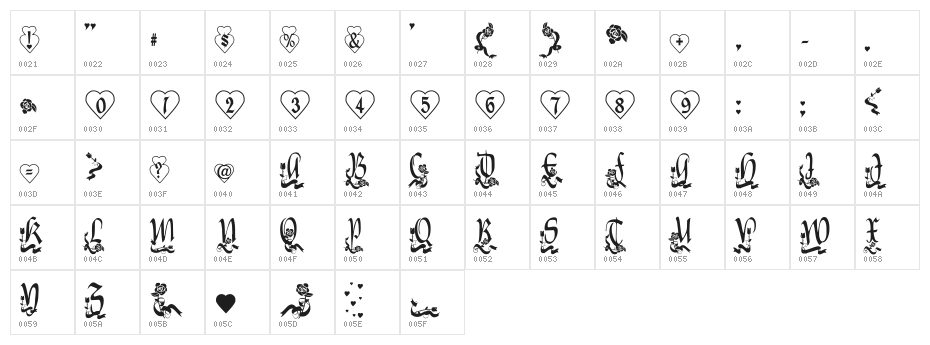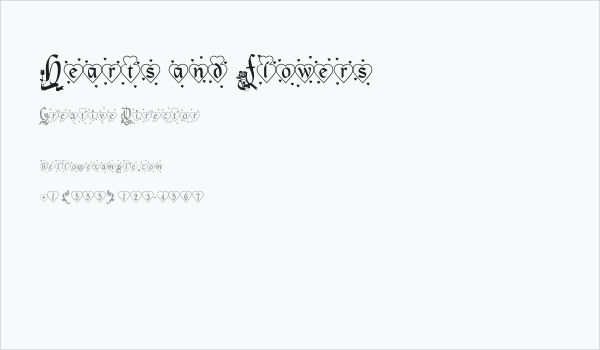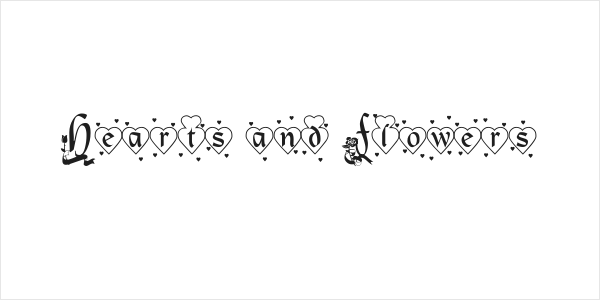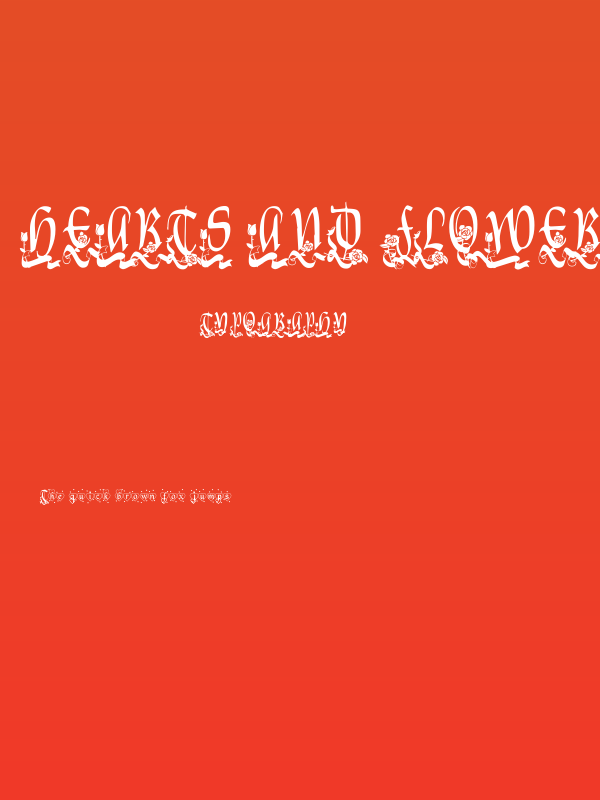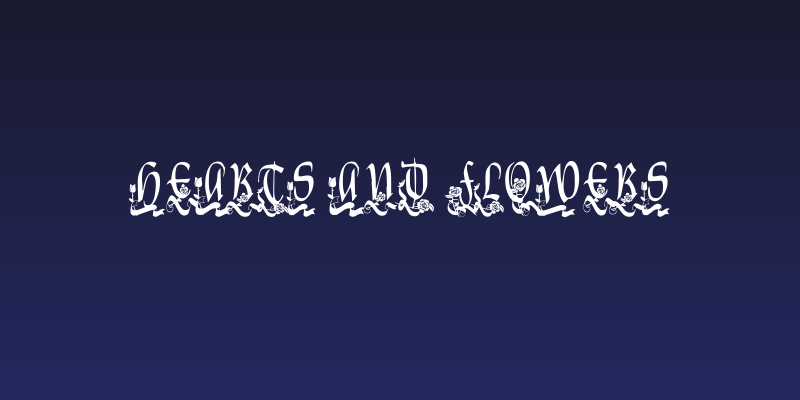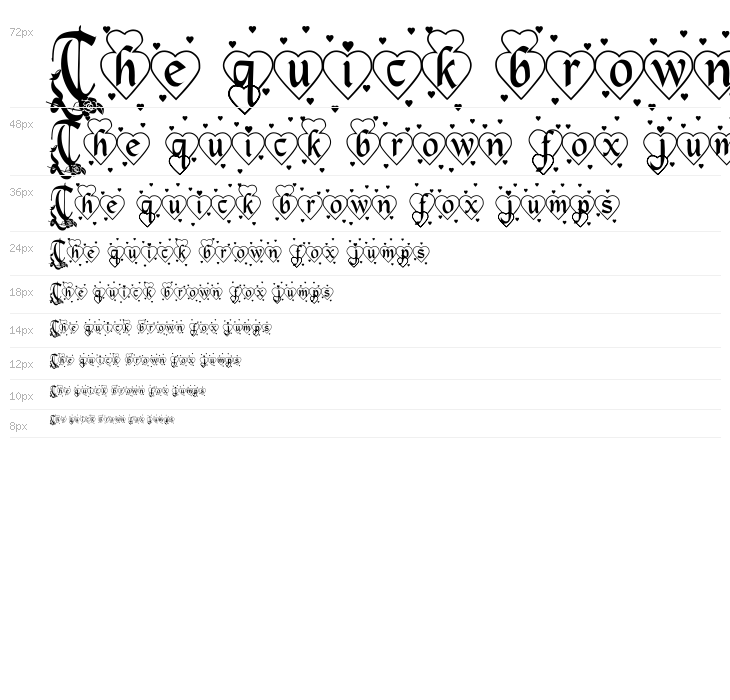
Hearts and Flowers Font
Hearts and Flowers Description
This decorative font is characterized by its intricate and ornate design, featuring floral and heart motifs that embellish each letter. The uppercase letters are adorned with roses and vines, creating a romantic and whimsical appearance. The lowercase letters are encased in heart shapes, further enhancing the theme of love and elegance. Numbers and special characters also follow this heart motif, maintaining consistency throughout the set. The font's unique style makes it ideal for projects that require a touch of romance and creativity.
| Use Case | Logos, Invitations, Decorative Text |
| Proposed Projects | Ideal for wedding invitations, Valentine's Day cards, romantic event branding, and decorative posters. |